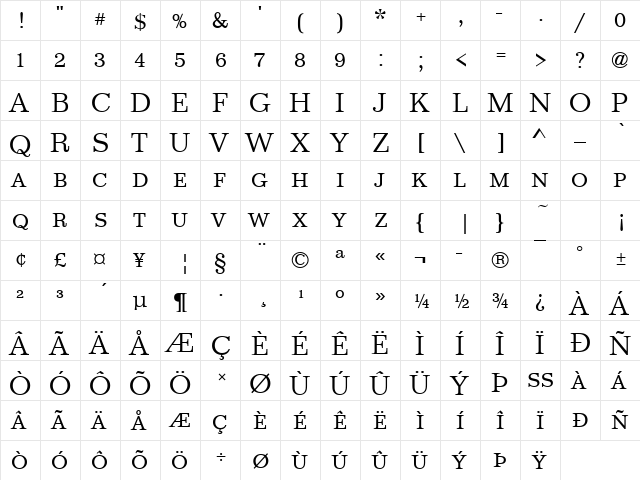
Mariam Becker Discaps Light Regular
Design Context for Mariam Becker Discaps Light Typeface
Mariam Becker Discaps Light is a composed and adaptable typeface that performs quietly and consistently across a wide range of design contexts. The delicate stroke weight brings airiness and refinement to layouts.